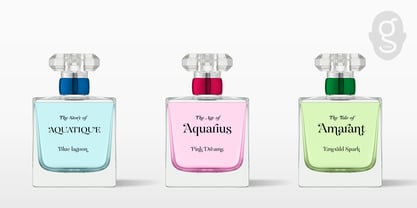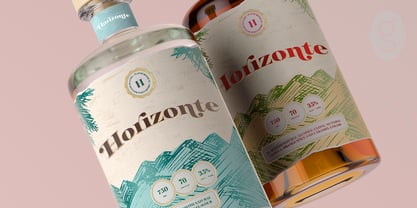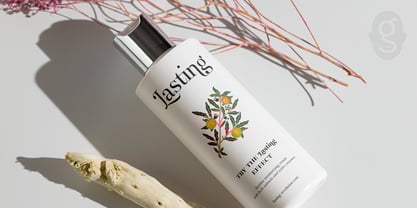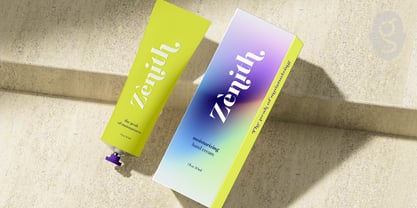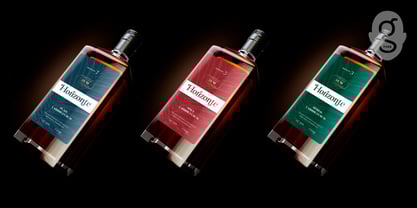
Saltaire
by G-Type
The Saltaire Font Family was designed by Nick Cooke and published by G-Type. Saltaire contains 14 styles and family package options.
Nick Cooke wanted to design a didone face but infuse it with more personality.
Enter Saltaire, several years in the making. “I adopted a slightly ‘lumpy’ feel,” says Cooke, “with tapered stems across an extensive range of weights from Light to Black, and included a ‘Swash’ feature for extra typographic flair.”
The family also contains super-contrasted Poster and Poster Italic styles, sure to make an impact in fashion magazines or any project that needs to make a bold statement.
Each Saltaire style contains additional small caps, stylistic alternates and multiple figure options.